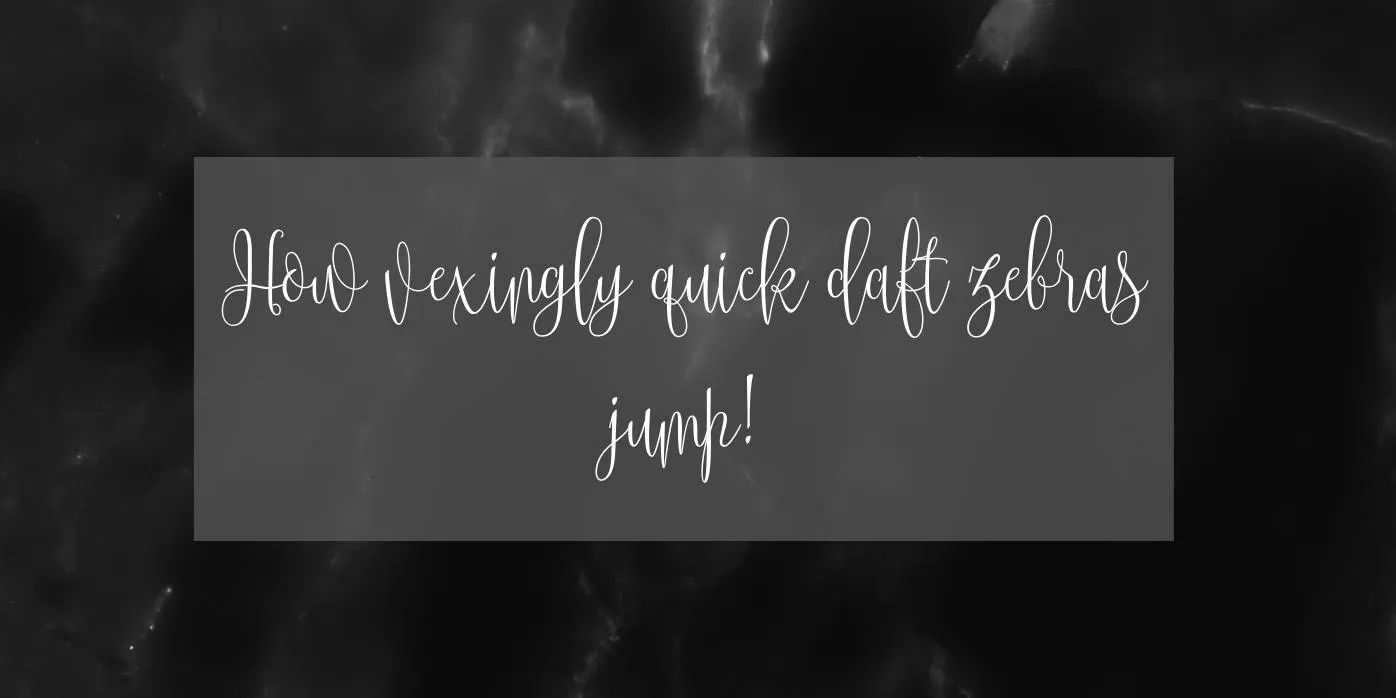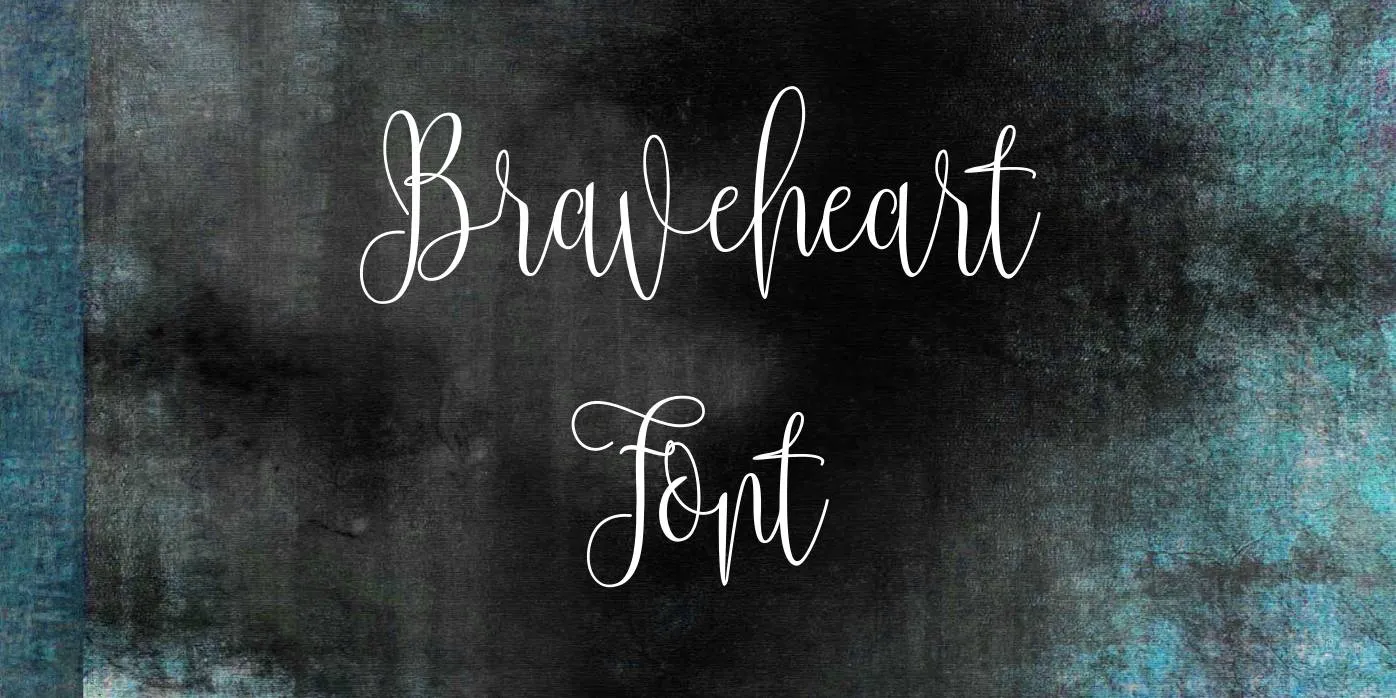
Braveheart Font
Braveheart Font was developed and published by Artisans. This tremendous typeface belongs to the Calligraphy typeface. It is a new font with a very modern style. The designer has worked hard to make it as perfect as possible.
It has been designed especially for headlines and poster design, but it can also be used in smaller sizes. This attractive font comes in two styles: Regular and Italic. This staggering typeface has different 13 special and classic weights. Also, this stylish font comes in more than 230 unique and strong characters like uppercase, lowercase, icons, and so on.